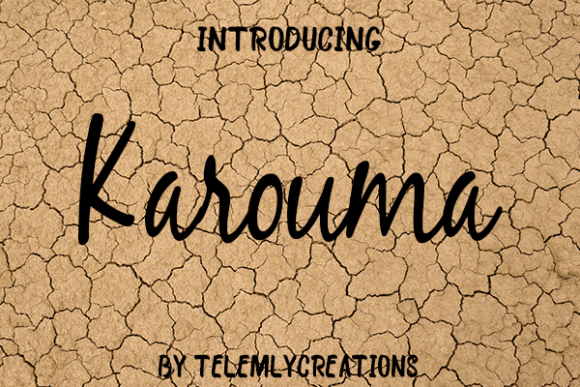
Step into the world of Karouma Font, a captivating script font family that will transform your creative designs into breathtaking masterpieces. With its enchanting handwritten style, Karouma Font is the ultimate choice for crafting eye-catching logos, alluring branding, and heartfelt quotes that leap off the page.
Unleash your imagination and let Karouma Font's unique and beautiful touch bring your designs to life. Each letter, meticulously crafted with a personal touch, dances across the page, adding a touch of charm and elegance to every word. Experience the joy of creating designs that resonate with your audience, leaving a lasting impression that speaks volumes.
Express your individuality with Karouma Font's versatility. Whether you're crafting a whimsical logo that reflects your brand's playful spirit, designing elegant branding that exudes sophistication, or creating heartfelt quotes that touch the heart, Karouma Font is your perfect companion. Its adaptability knows no bounds, allowing you to weave your creative magic across a myriad of projects.
Immerse yourself in the beauty of Karouma Font's handwritten style. Its flowing lines and graceful curves evoke a sense of nostalgia, while its modern twist adds a touch of contemporary flair. Experience the delight of creating designs that feel both timeless and fresh, capturing the attention of your audience with their captivating allure.
With Karouma Font, the possibilities are endless. Let your creativity soar as you explore the depths of your imagination, transforming ordinary designs into extraordinary works of art. Discover the joy of creating logos that stand out from the crowd, branding that captivates, and quotes that inspire.
Embrace the magic of Karouma Font today and embark on a creative journey that will leave you breathless. Witness the transformation as your designs take on a life of their own, captivating your audience with their beauty and charm.